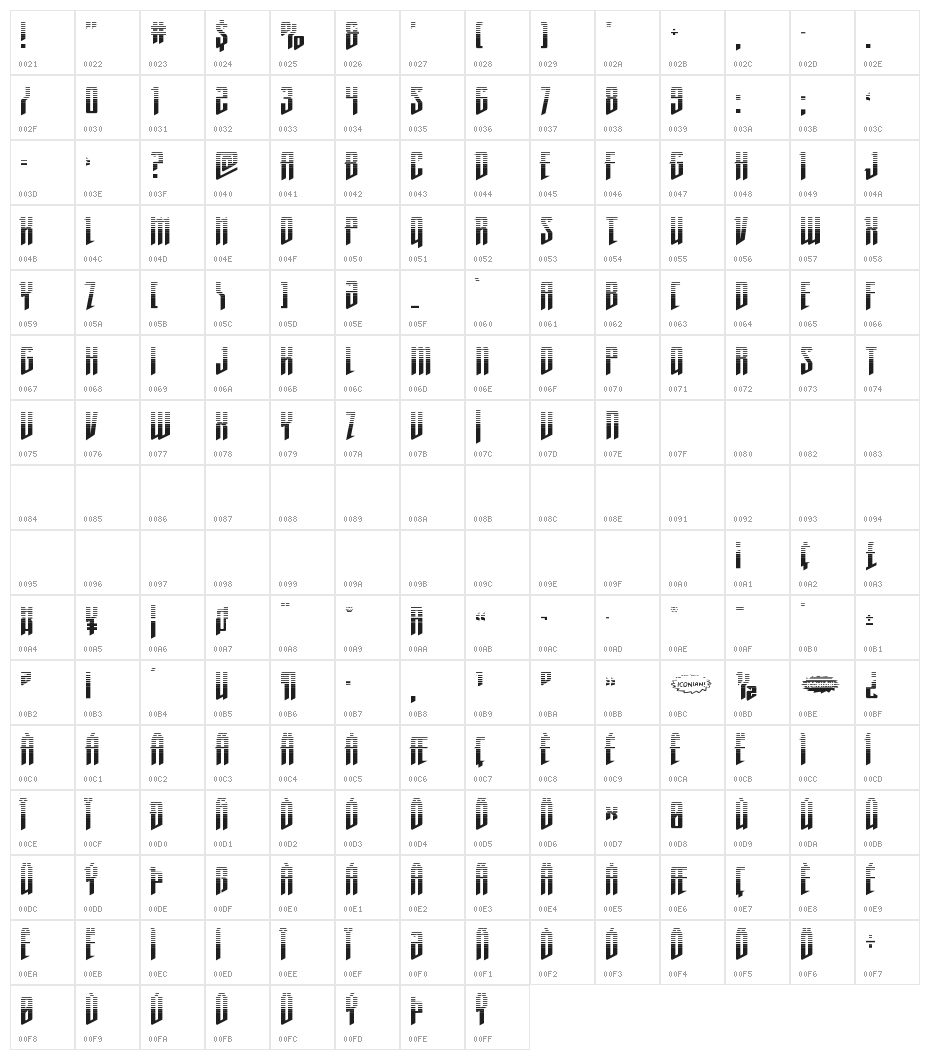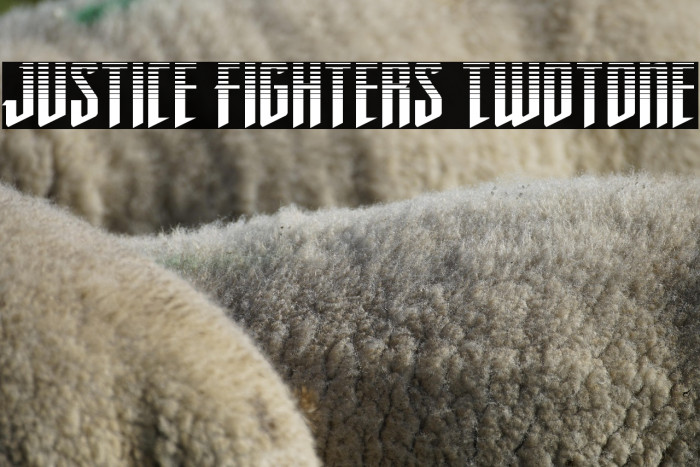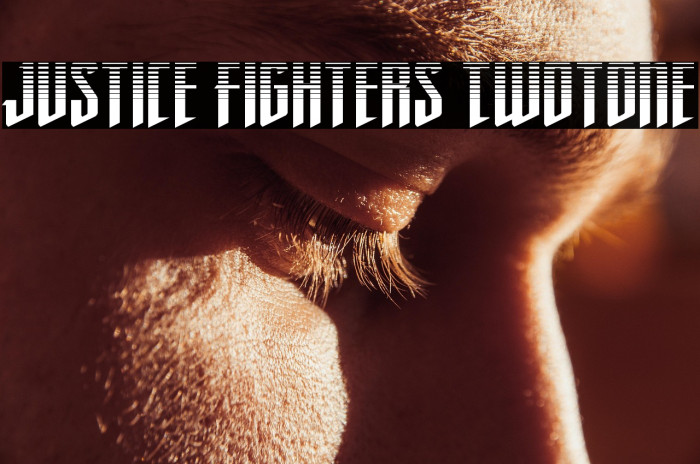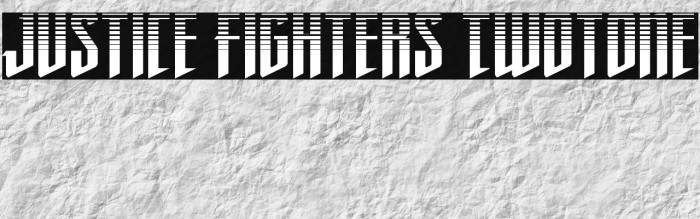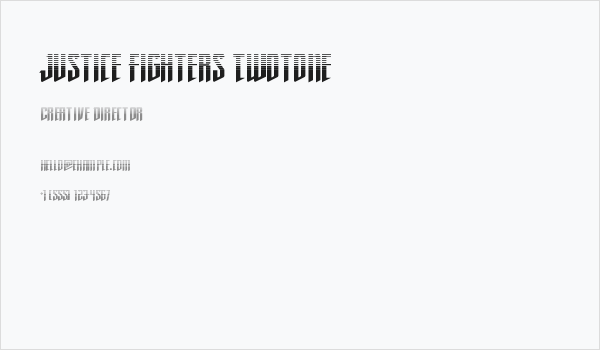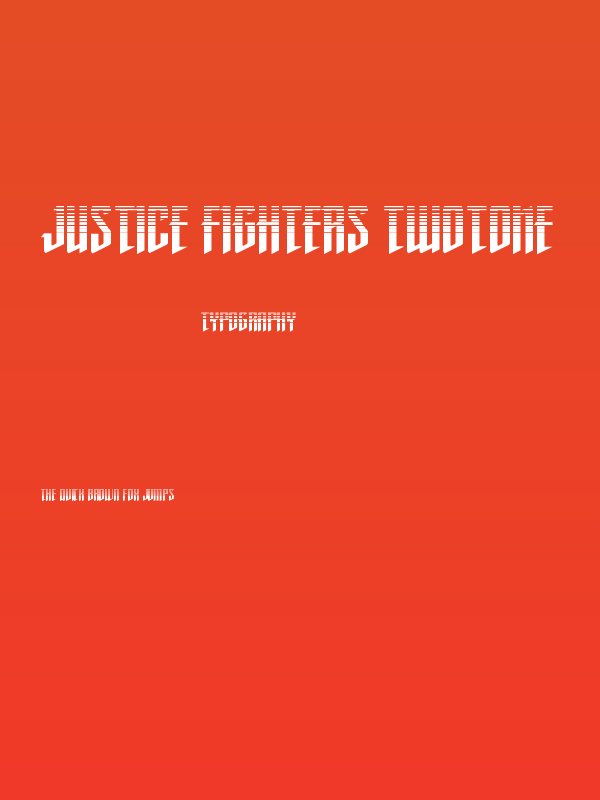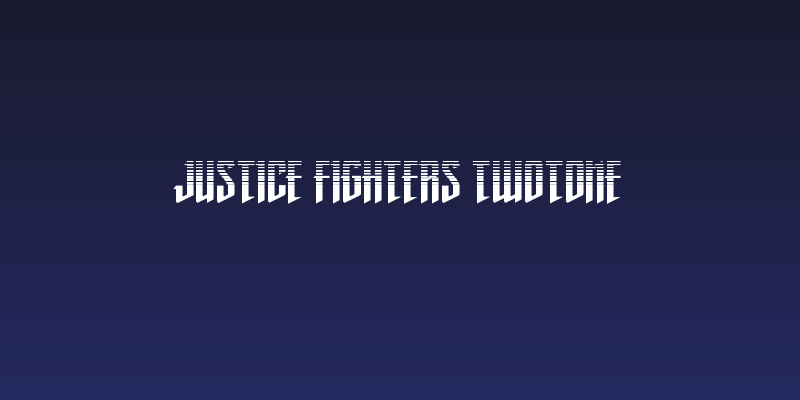
Justice Fighters Twotone Font
Justice Fighters Twotone Description
This font features a bold, dynamic design with a two-tone effect that creates a sense of depth and movement. The characters are sharply angular, with a futuristic and aggressive style that makes them stand out. The uppercase and lowercase letters maintain a consistent width, while the numbers and special characters follow the same design principles. The striped pattern within each character adds a unique visual texture, enhancing the overall impact. This font is particularly suited for projects that require a strong, eye-catching typeface with a modern edge.
| Proposed Projects | Ideal for video game titles, movie posters, sports branding, and any project needing a striking, modern typeface. |